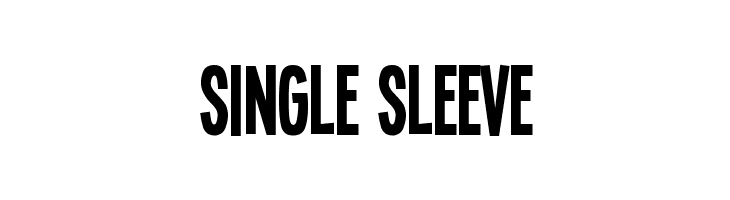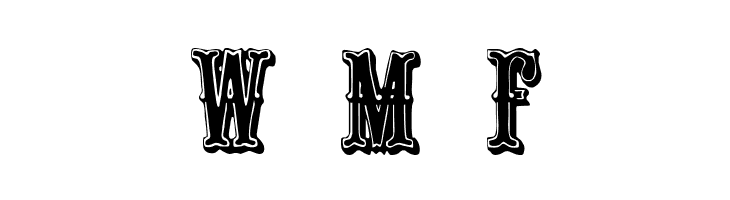
A bold, edgy font with sharp angles and a heavy metal vibe.
A bold, brush-style font with an energetic and hand-painted look.
A refined serif font with thin, elegant strokes and classic proportions.
A bold, textured font with a vintage and industrial feel.
A bold, vintage font with decorative serifs and a Wild West flair.
An elegant italic serif font with smooth, flowing lines and moderate contrast.
A pixelated, retro-style font inspired by early digital graphics.
A playful, ice cream-themed decorative font with bold, rounded characters.
A robust slab serif font with a classic yet modern aesthetic.
A casual, handwritten style font with a dynamic and lively feel.
A bold, blocky font with uniform width and tight spacing.
A bold, edgy font with sharp angles and thick strokes, perfect for standout designs.
A playful, hand-drawn font with rounded, whimsical characters.
A playful, bold font with rounded, bubbly characters ideal for creative projects.
A bold, playful font with thick, rounded strokes and a whimsical, hand-drawn feel.
A modern serif font with elegant letterforms and medium contrast.
A bold, elegant serif font with strong, pronounced strokes.
A bold, textured font with a playful, hand-drawn style.
A bold, dynamic script font with flowing, hand-drawn strokes.
A bold, angular font with a digital, futuristic style.
A bold, brush-style italic font with dynamic, textured strokes.
A bold, italic font with a futuristic and dynamic style.
A bold, heavy serif font with strong strokes and classic elegance.
A clean, modern sans-serif font with excellent readability.
A bold, calligraphic script font with dynamic strokes and angular edges.